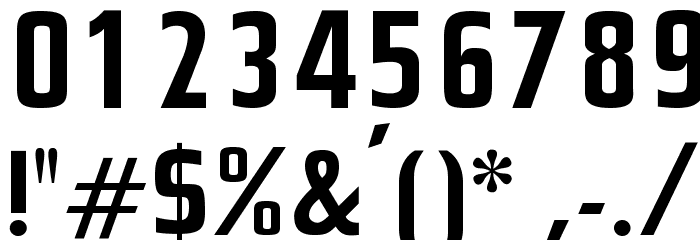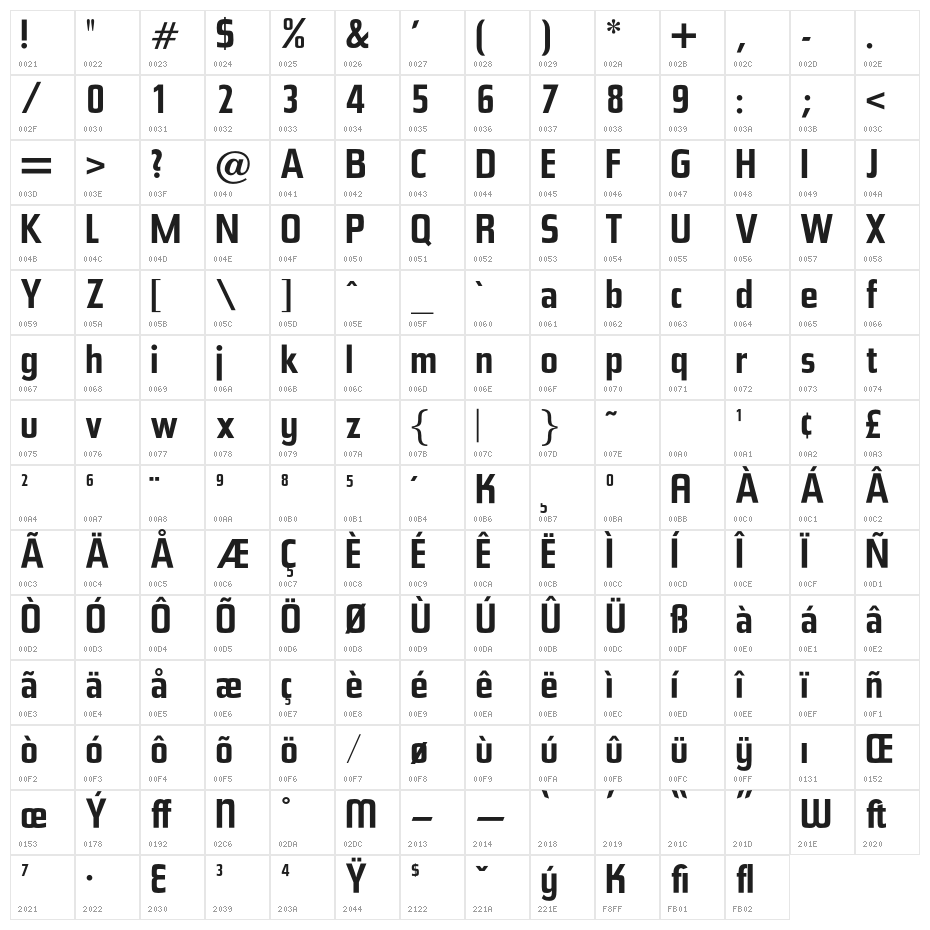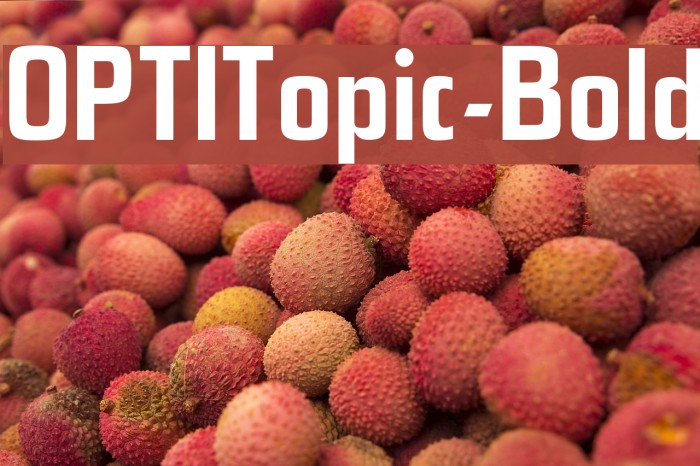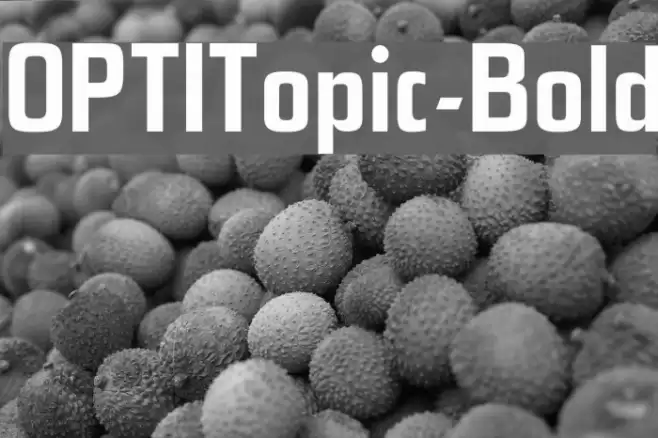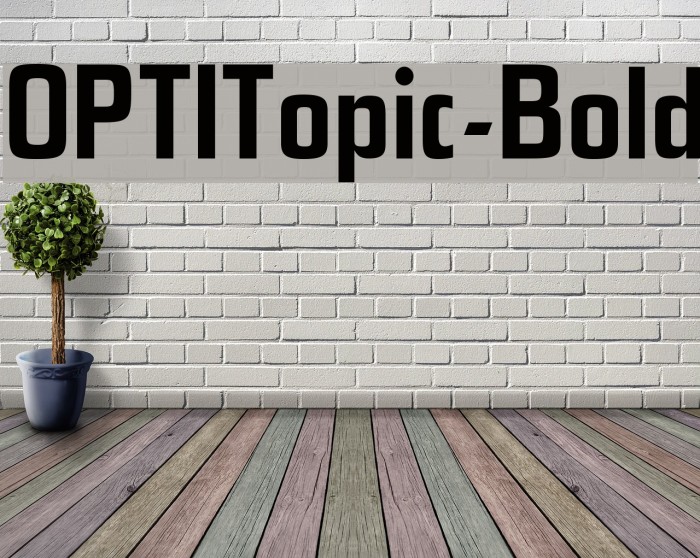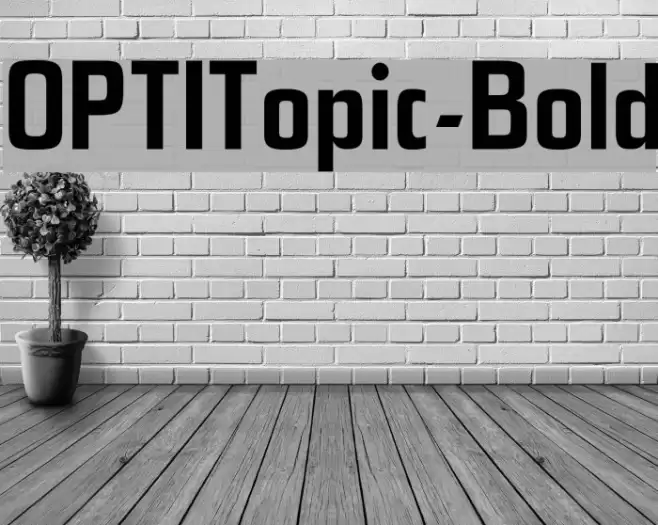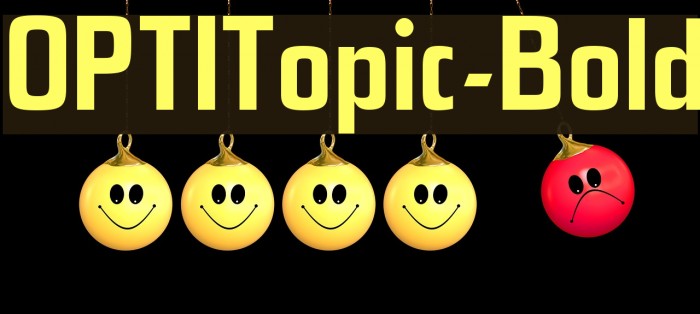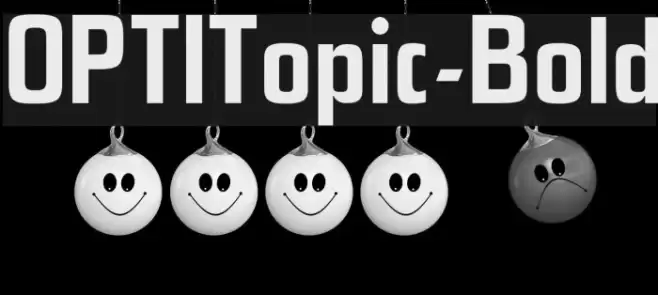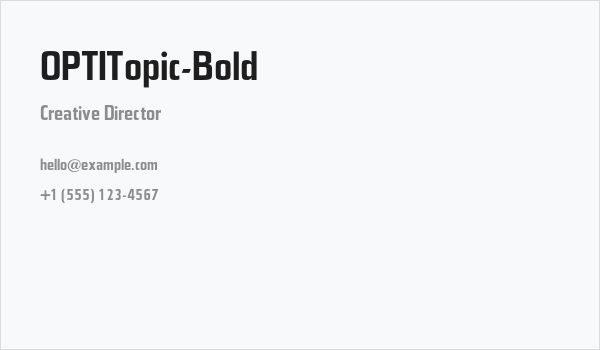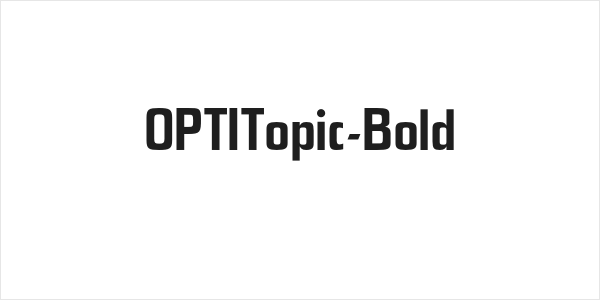
OPTITopic-Bold Font
OPTITopic-Bold Description
This font exhibits a bold and assertive style, characterized by its strong, geometric shapes and clean lines. The uppercase letters are tall and commanding, while the lowercase letters maintain a consistent height, offering a balanced appearance. The numerals are equally robust, ensuring clarity and readability. Special characters are designed with the same boldness, making them stand out effectively. The overall design is modern and versatile, suitable for a variety of applications where impact and clarity are essential.